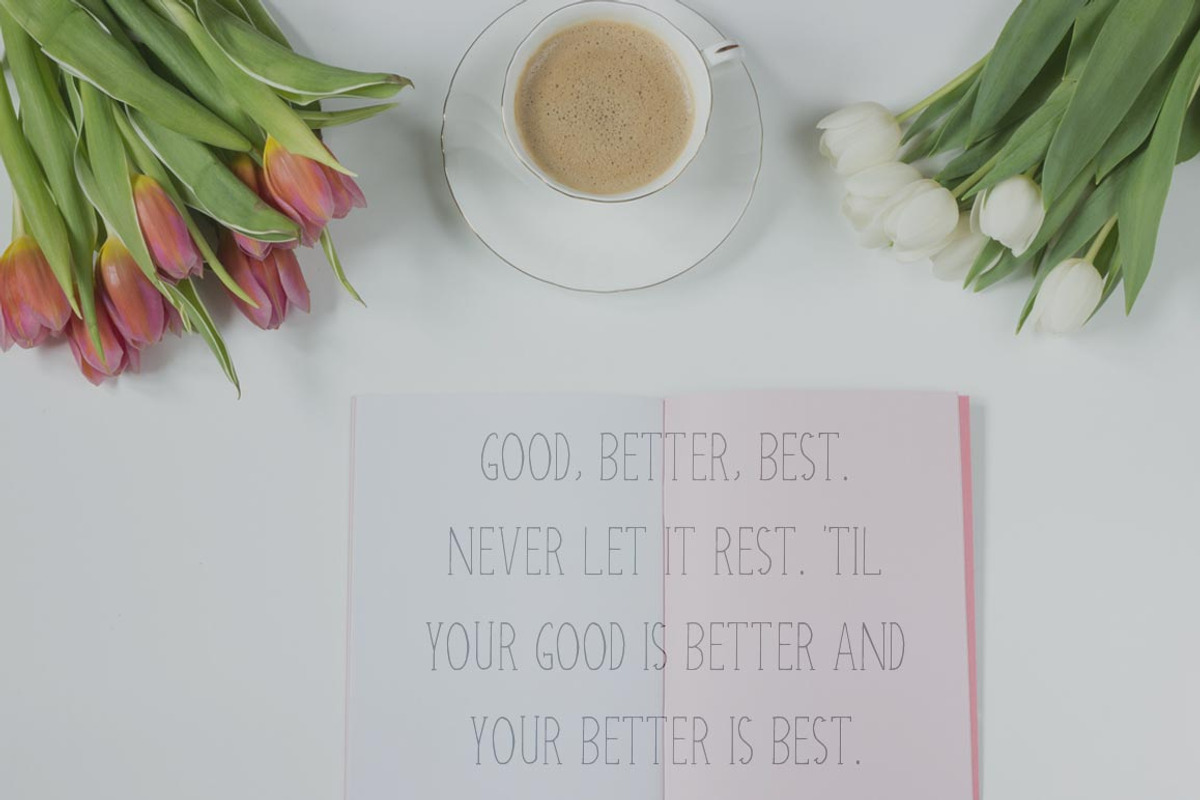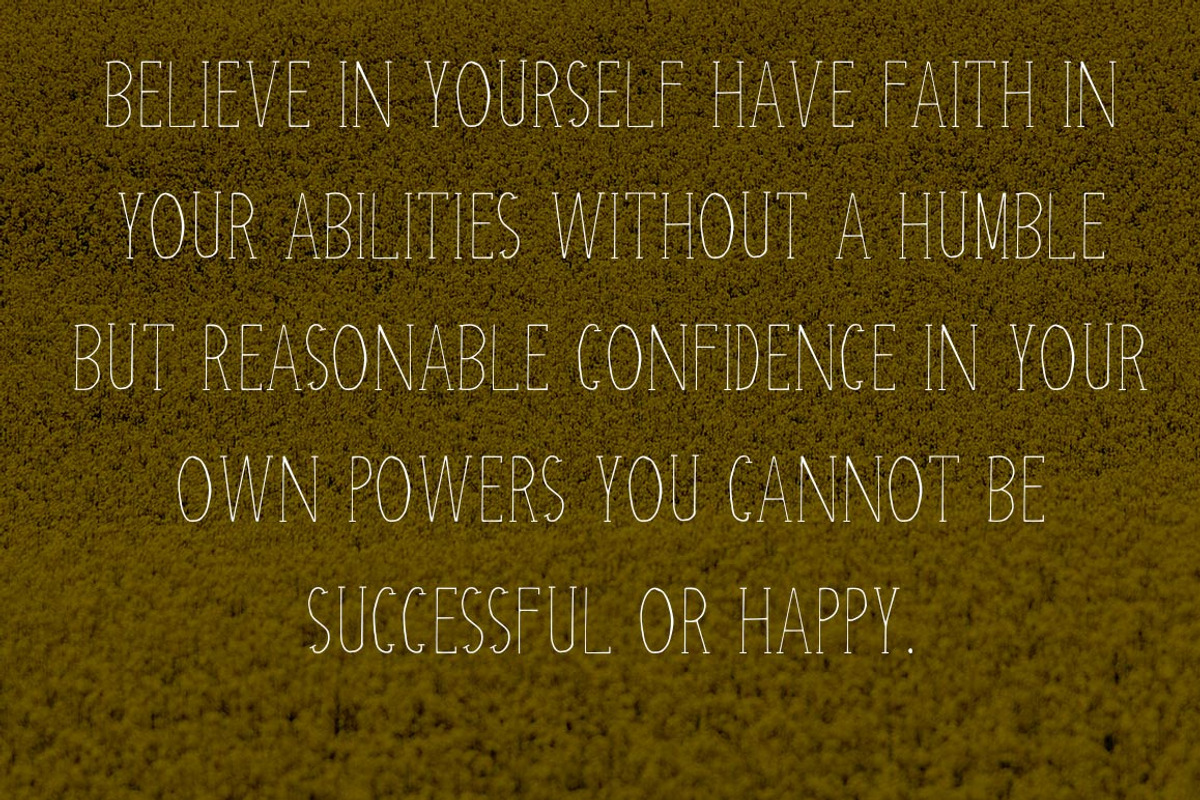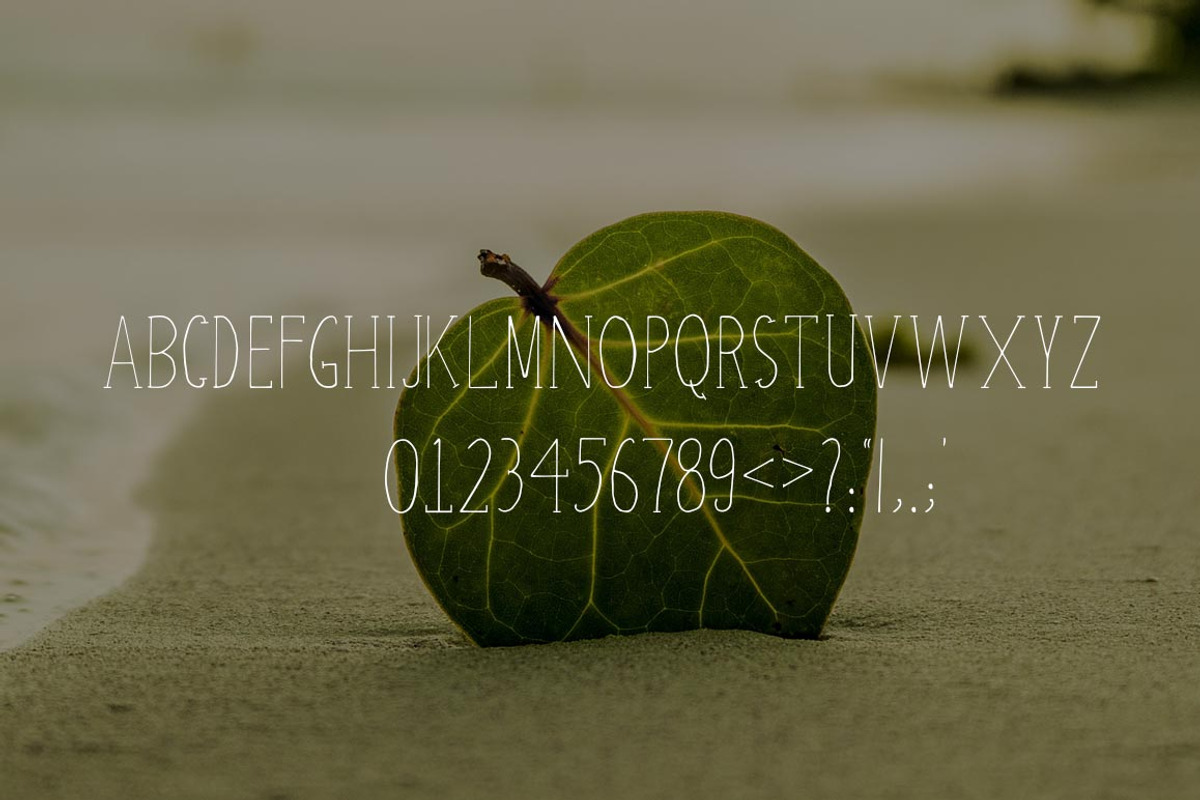
Atifa Serif Font
Atifa Serif Font by Creativetacos is a font selected for branding, posters, packaging, typography.
- The font contains numbers, and punctuation (see preview) Your work will look fresh and new!
Why Atifa Serif Font is worth a look
Atifa Serif Font by Creativetacos fits naturally into Branding, posters, packaging, typography.